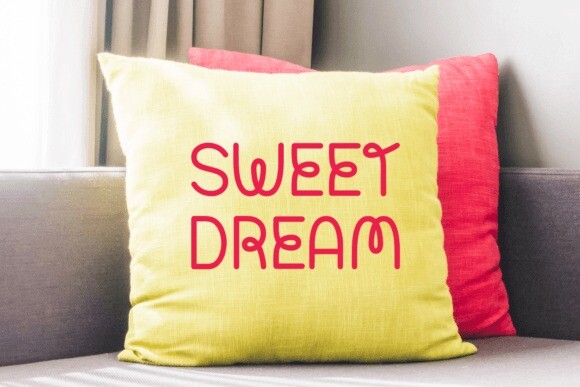
Quick Beauty Font
Quick Beauty Font is an adorable handwritten font that effortlessly adds a touch of cuteness to your projects. With its playful strokes and charming style, this font is perfect for bringing a lighthearted and friendly vibe to your designs. Whether you’re working on invitations, cards, or any creative endeavor, Quick Beauty adds a sweet and approachable feel. Embrace the simplicity and charm of this cute handwritten font for a quick and delightful beauty boost to your typography.